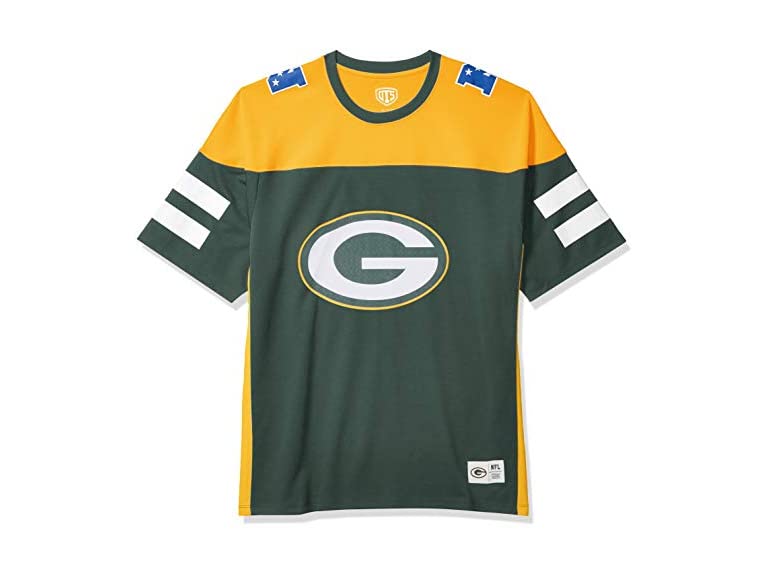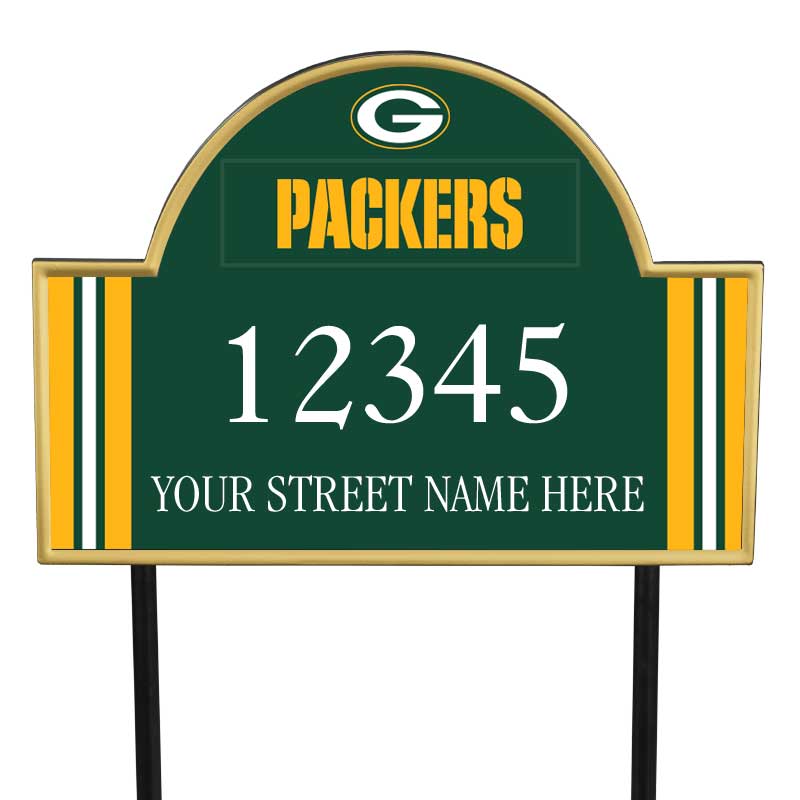
Packers Jersey Font
Packers jersey font. The green bay packers logo features a white g in a green oval with a yellow outline with its wordmark beneath. Green bay packers is the only non profit community owned major league professional sports team based in the united states. Font meme is a fonts typography resource. A font based on the green bay packers logo.